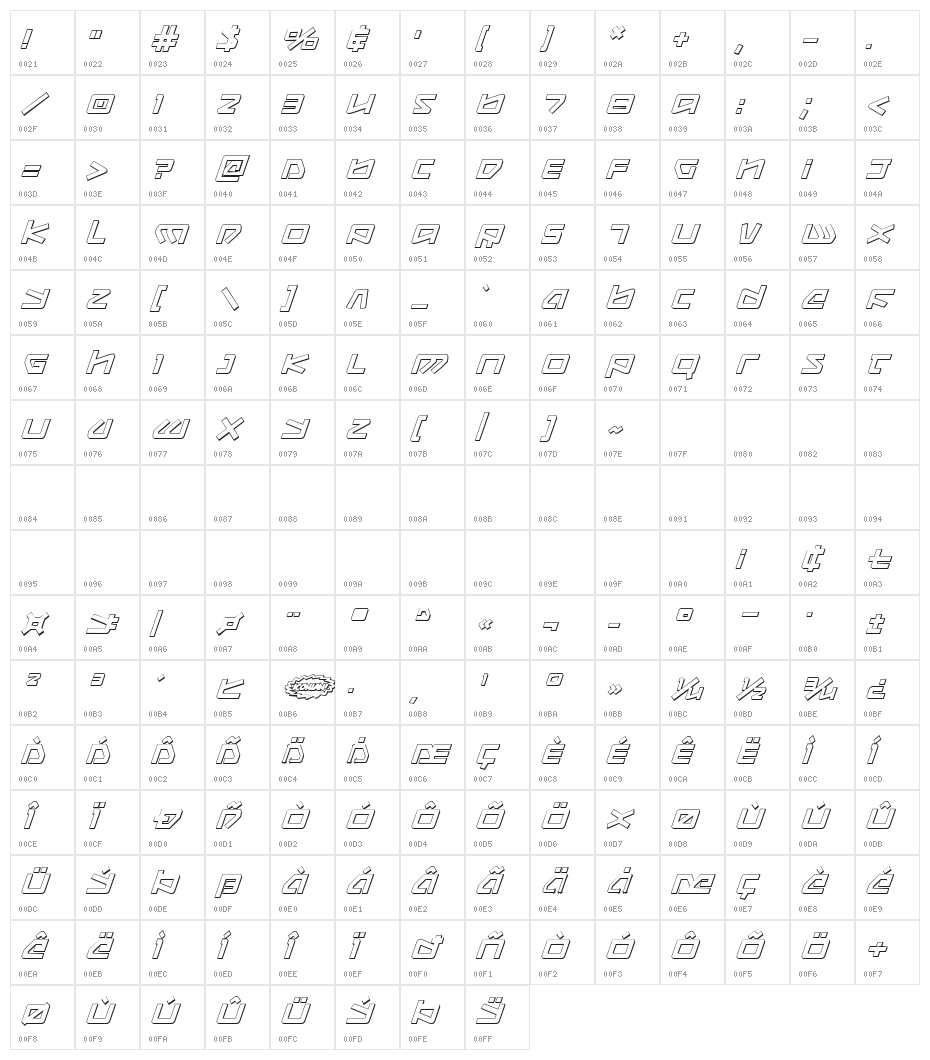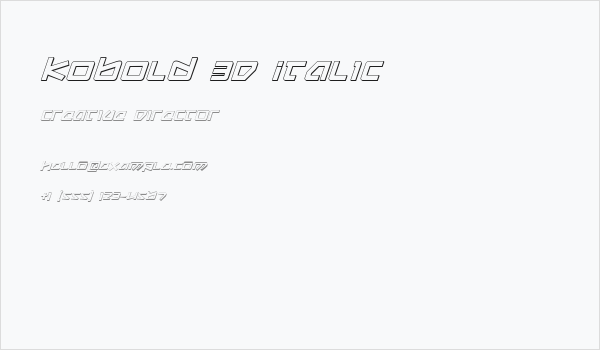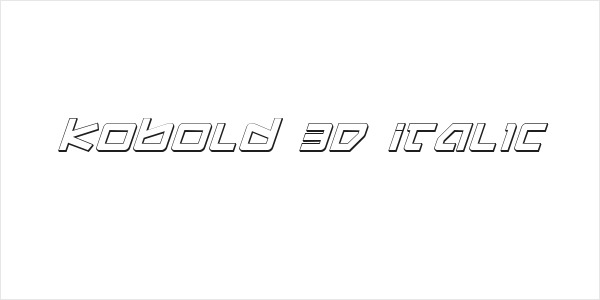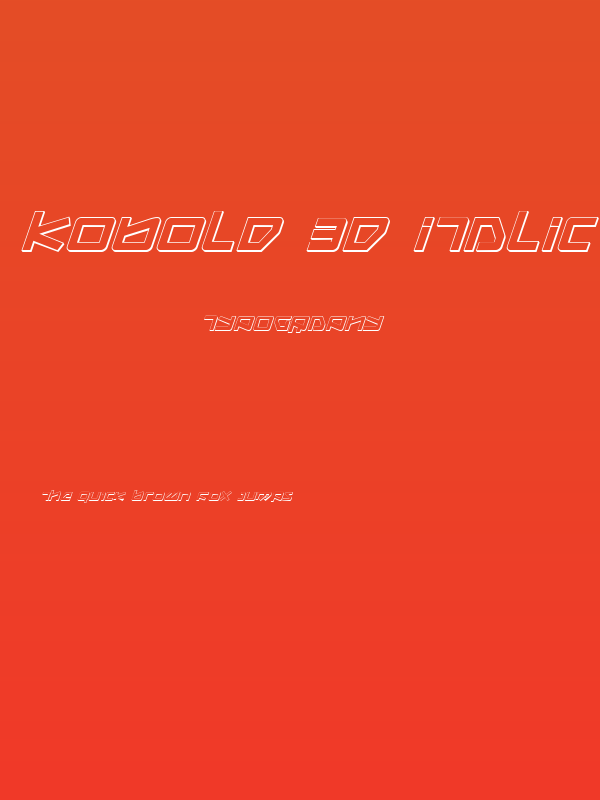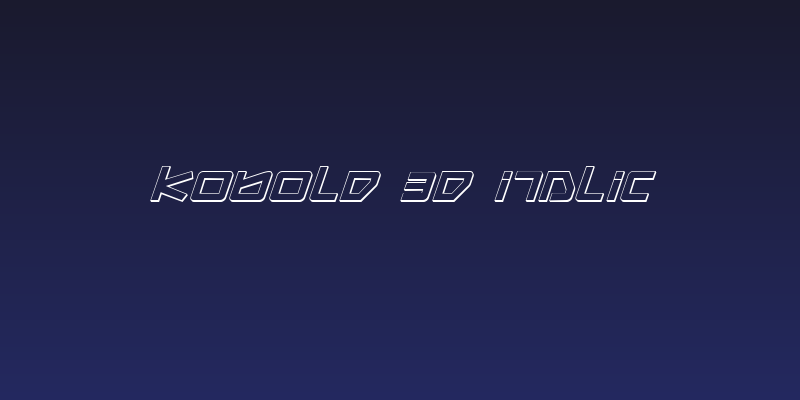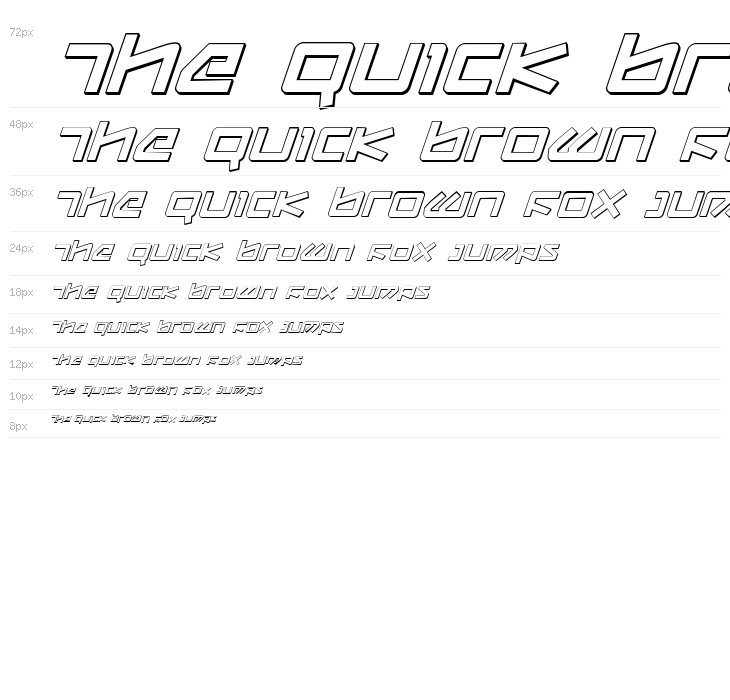
Kobold 3D Italic Font
Kobold 3D Italic Description
This font features a bold, futuristic design with a three-dimensional effect. The characters are outlined, giving them a hollow appearance that adds depth and intrigue. The angular and geometric shapes of the letters convey a sense of modernity and innovation. The italic slant enhances the dynamic and forward-moving feel, making it suitable for projects that require a cutting-edge and tech-savvy aesthetic. The font maintains a consistent stroke width, contributing to its clean and structured look. Its unique style is eye-catching and memorable, perfect for making a strong visual impact.